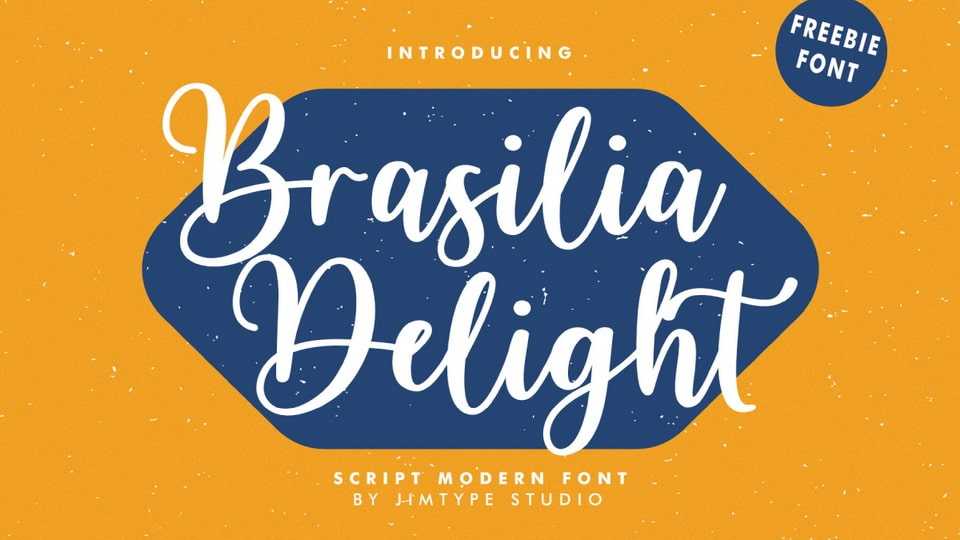
Download Brasilia Delight font, a captivating modern script typeface designed to elevate your creative endeavors! Brasilia Delight font exudes elegance and charm, making it perfect for branding, advertising, merchandise, and beyond.